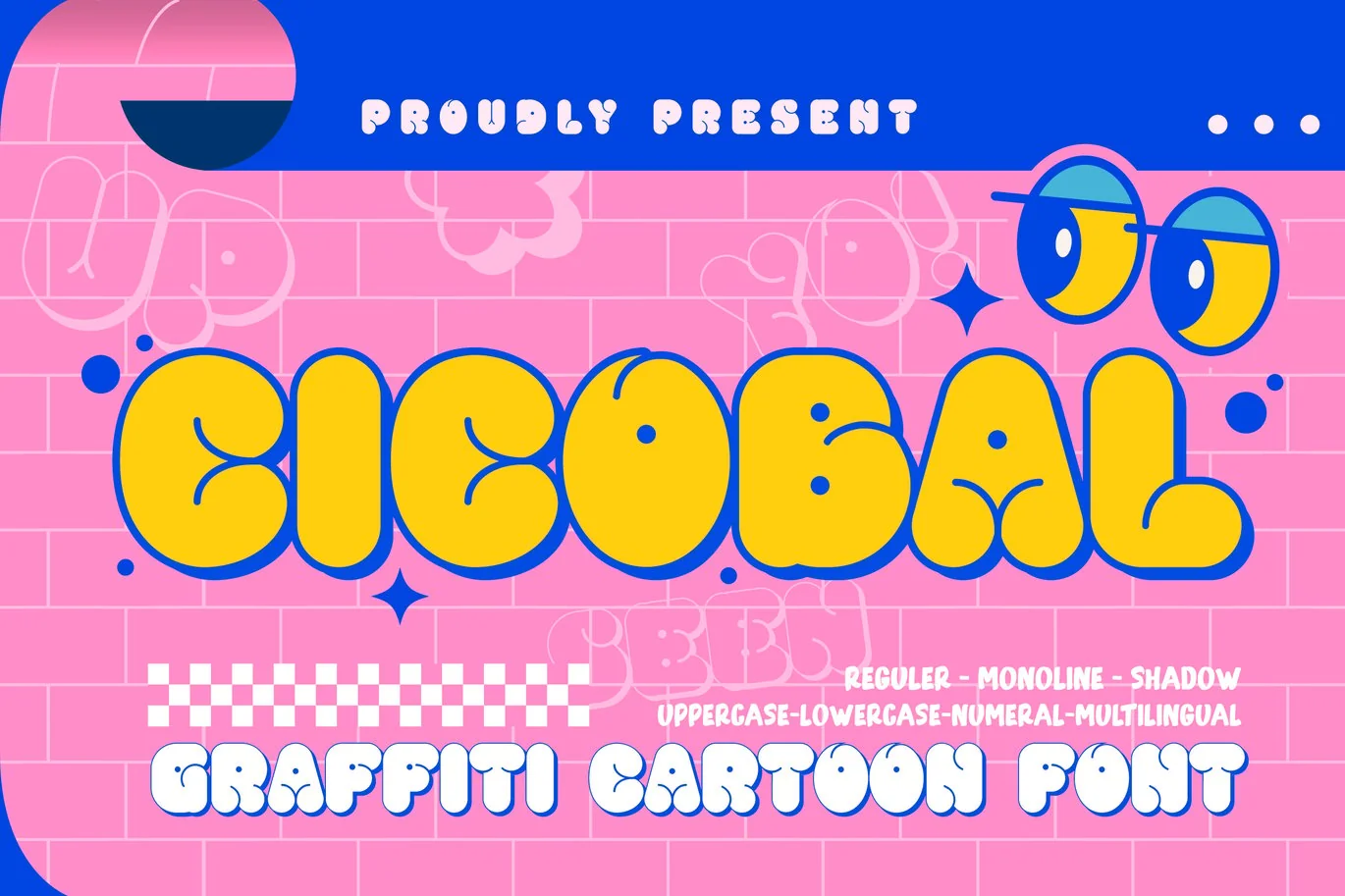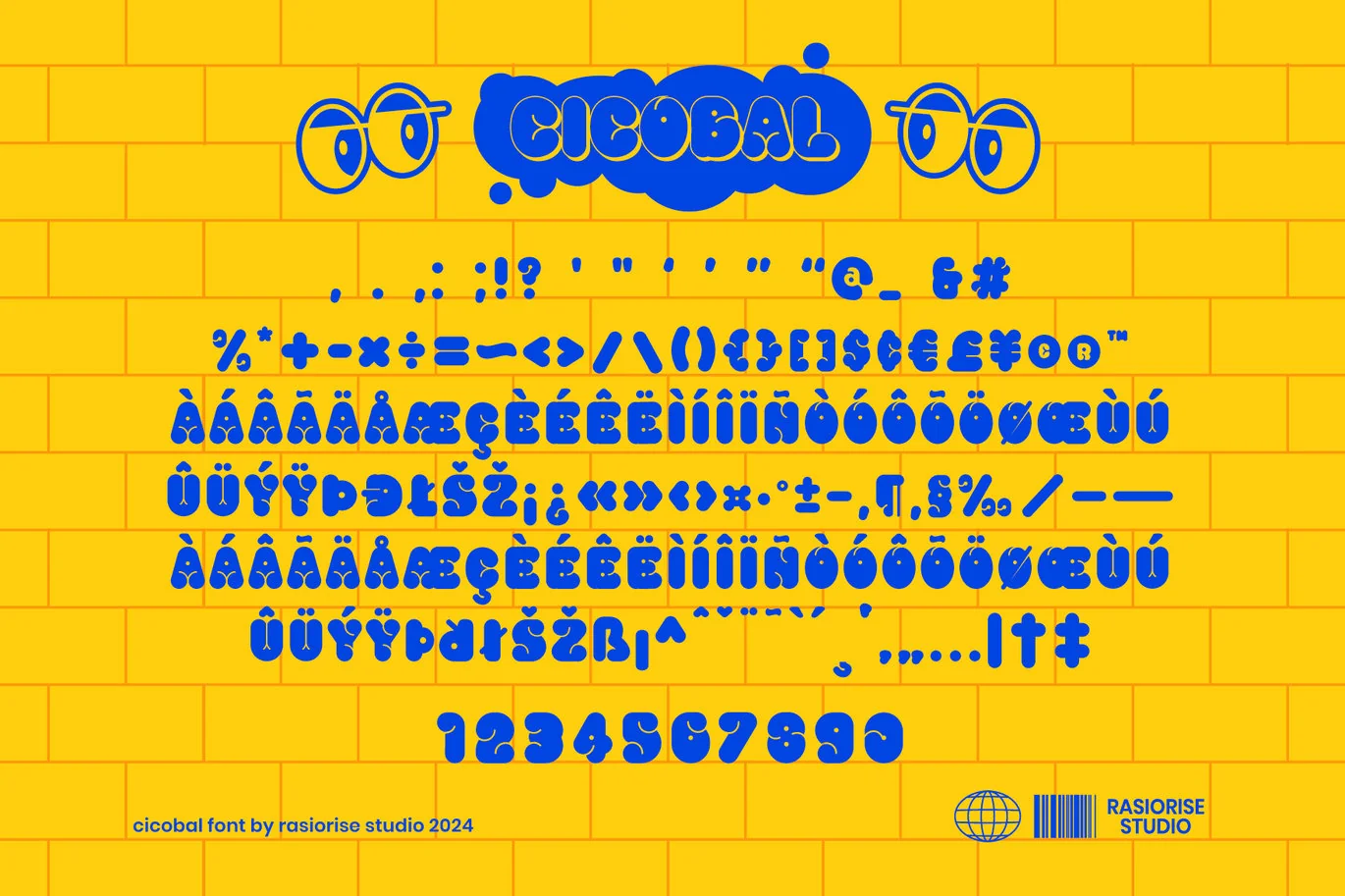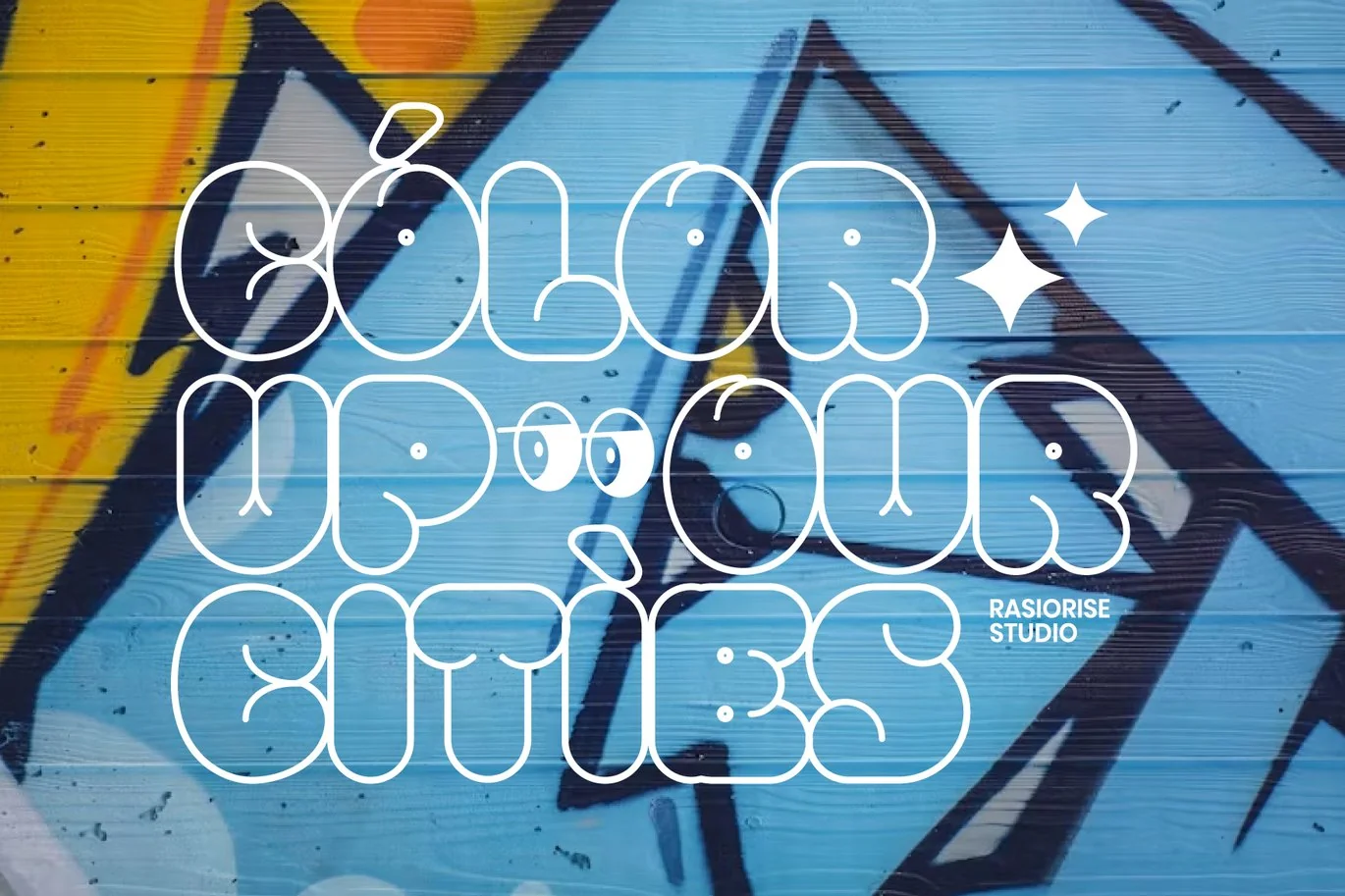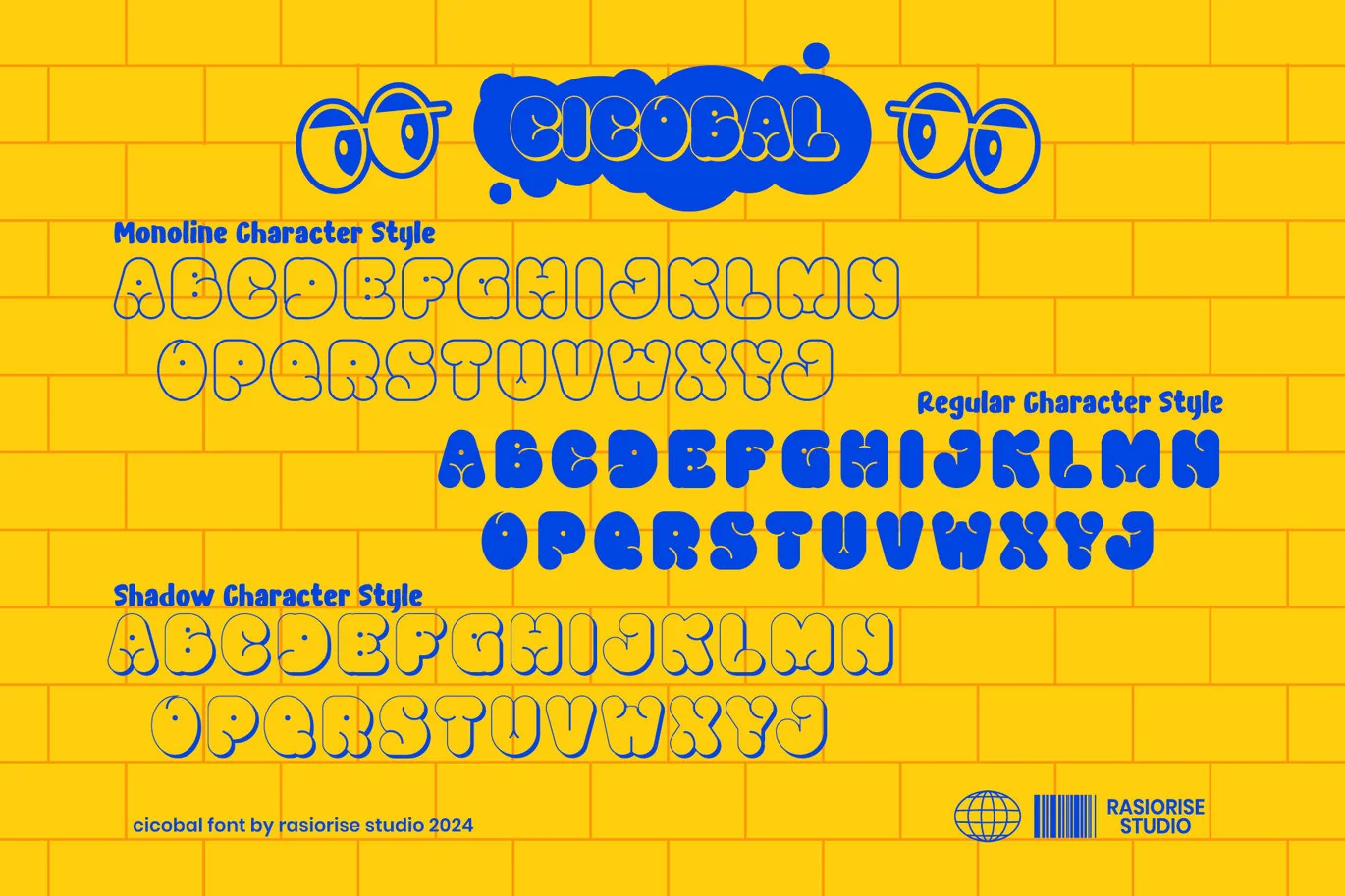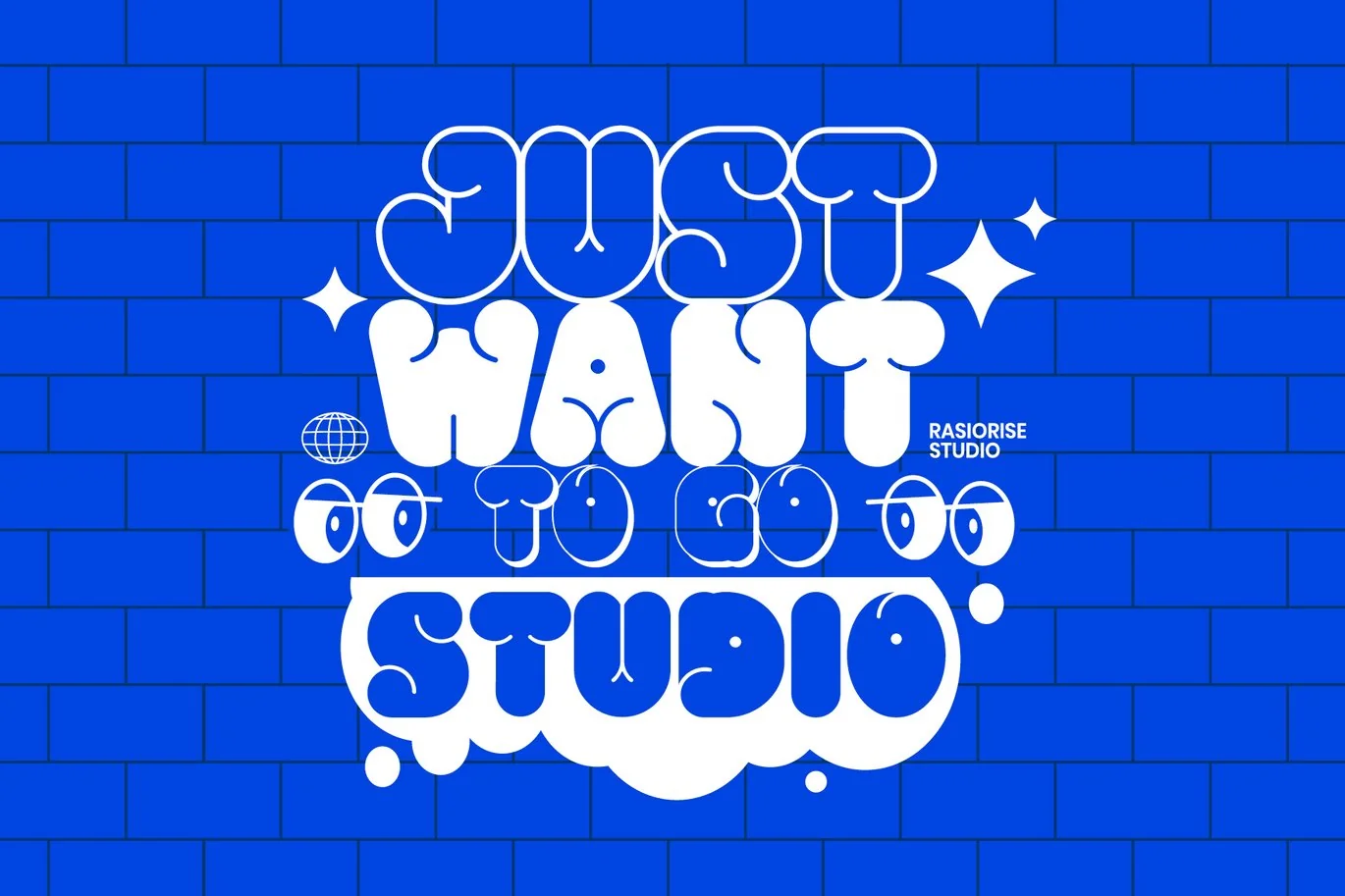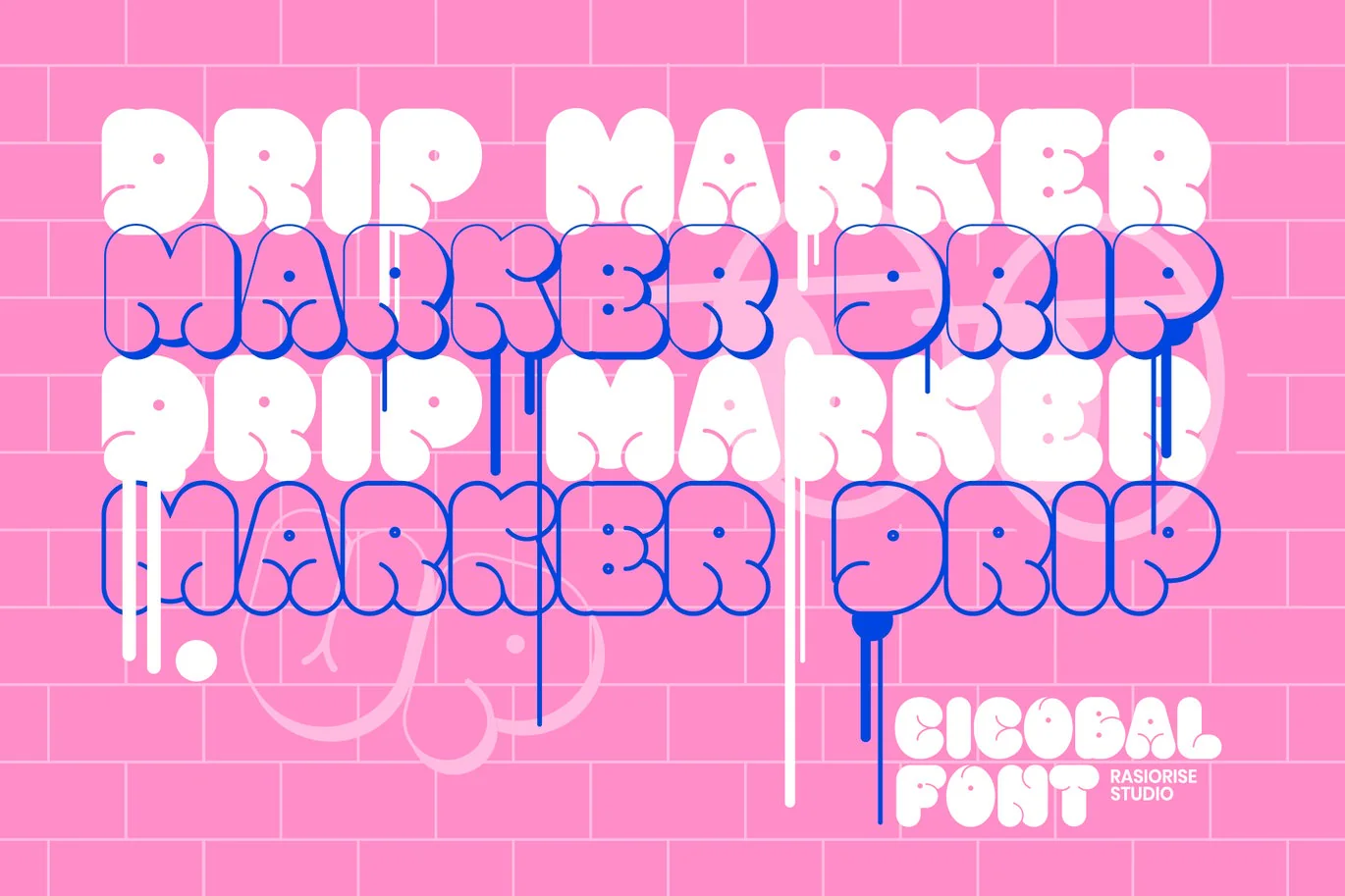
Cicobal – Graffiti Bubble Cartoon Font
Presenting Cicobal – Graffiti Bubble Cartoon Font by Rasiorise Studio
The font Cicobal Type is now available for people searching for a Graffiti Bubble Cartoon Font. The Bubble and “throwup Graffiti” Street art styles shape served as inspiration for this design. This font is Family Character Style (Reguler Style, Monoline Style, Shadow Style). included as the Uppercase and lowercase regular character, Numeral and multilingal support, were combined to give the typeface a bubble graffiti cartoon appearance.
- Numeral, Punctuation & Symbols
- Regular Character Font
- Monoline Character Font
- Shadow Character Font